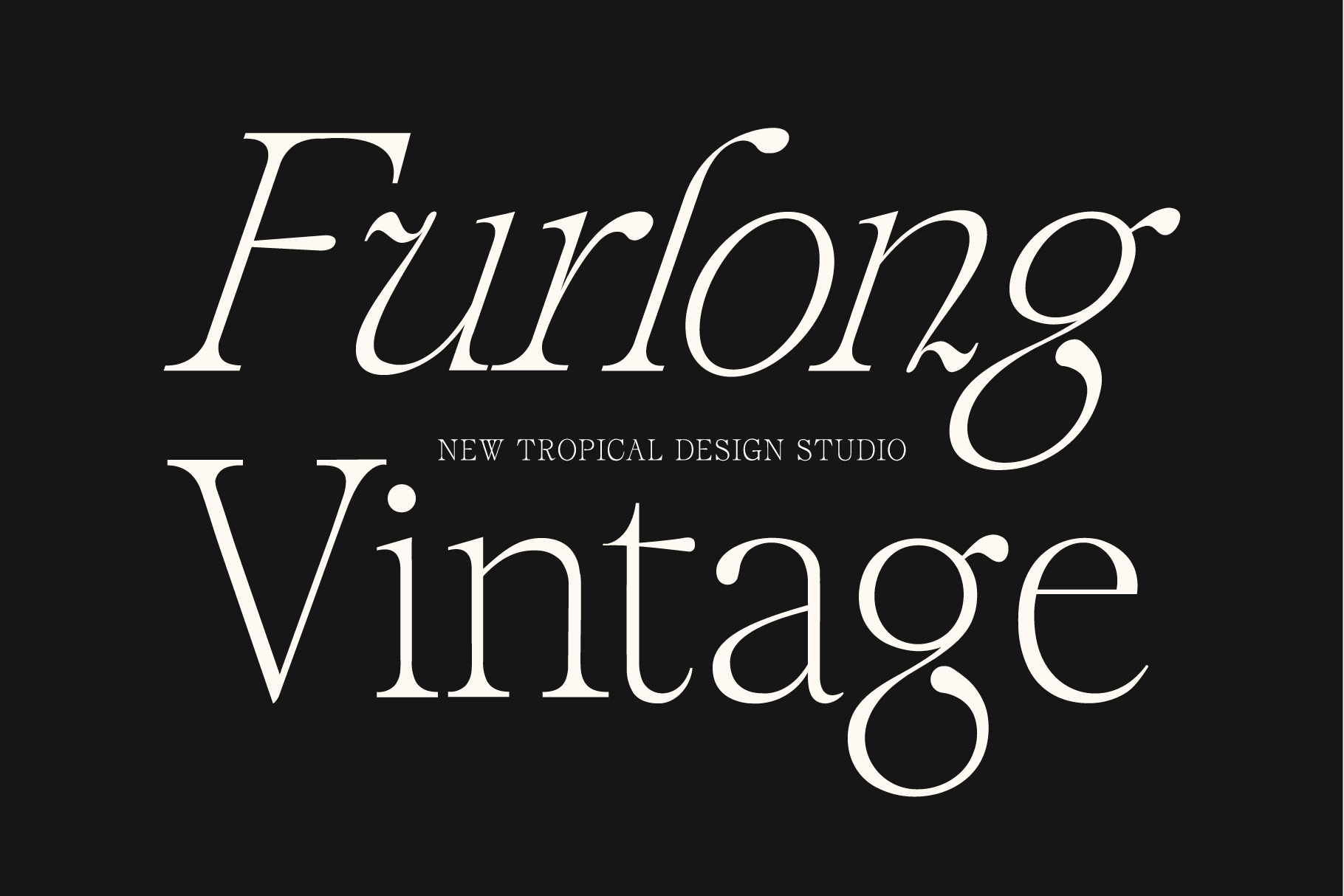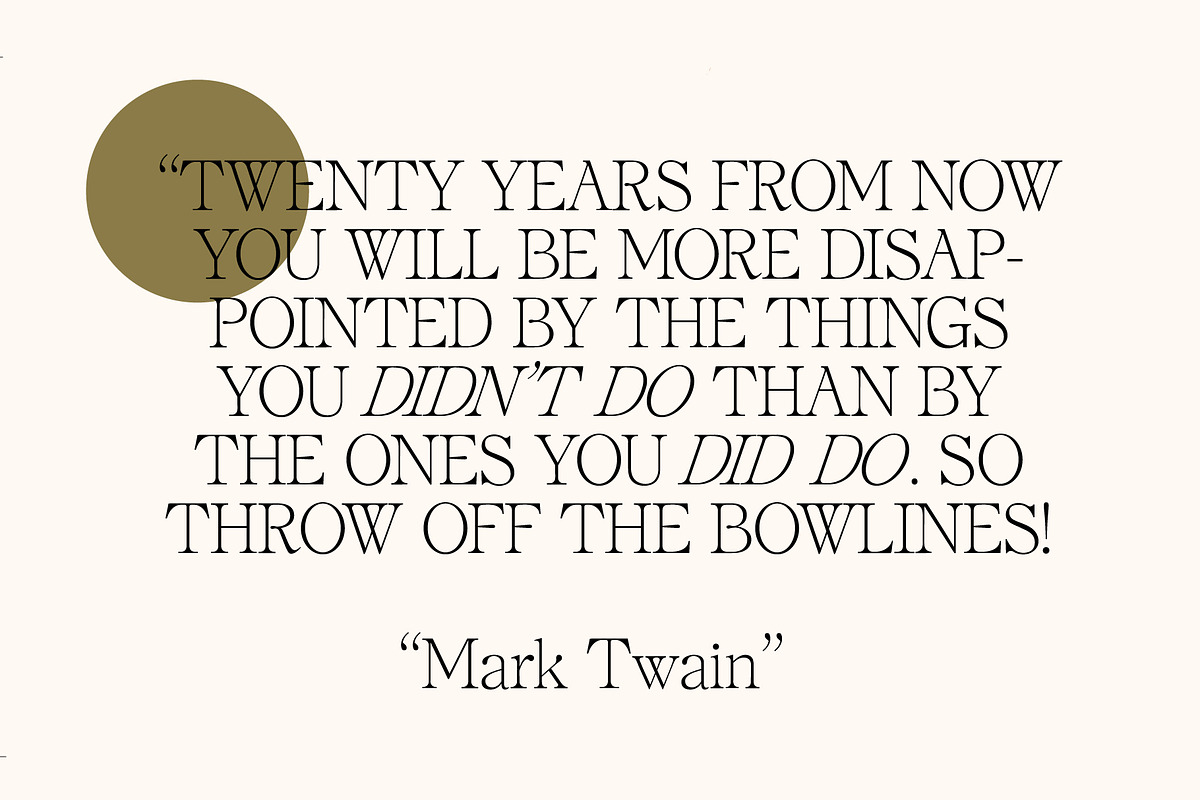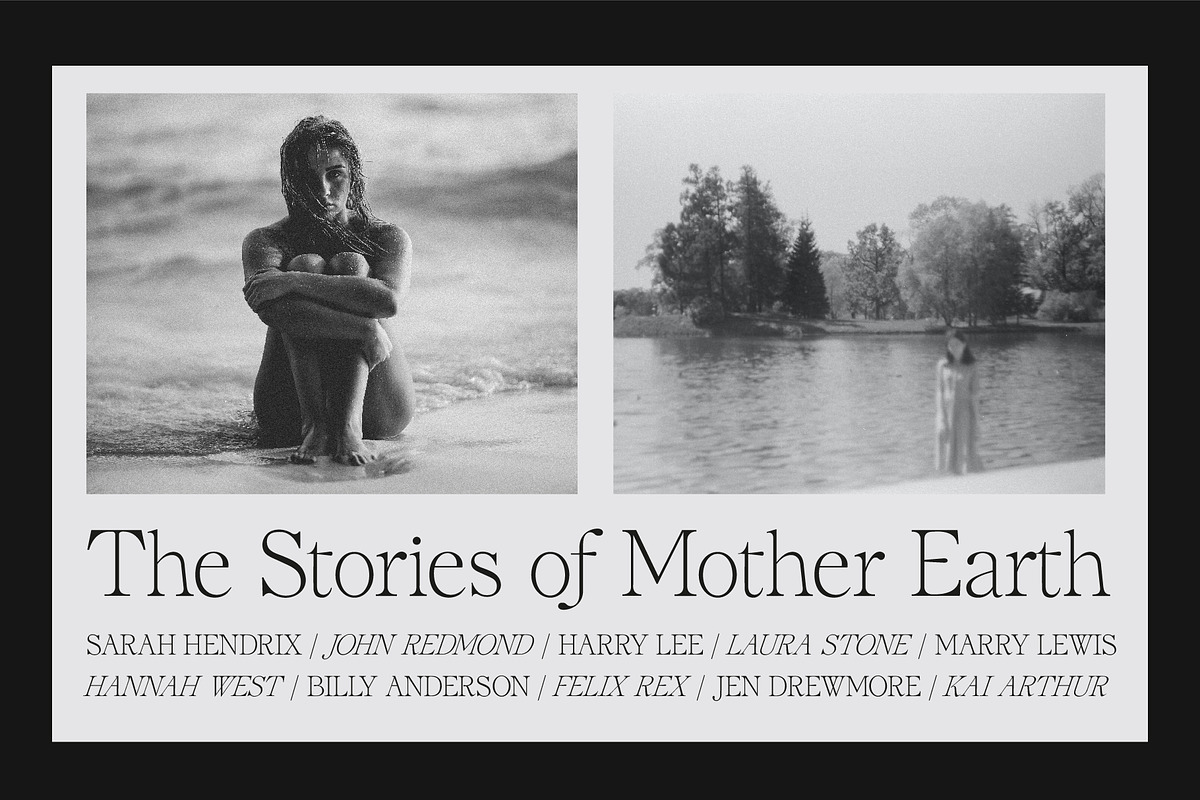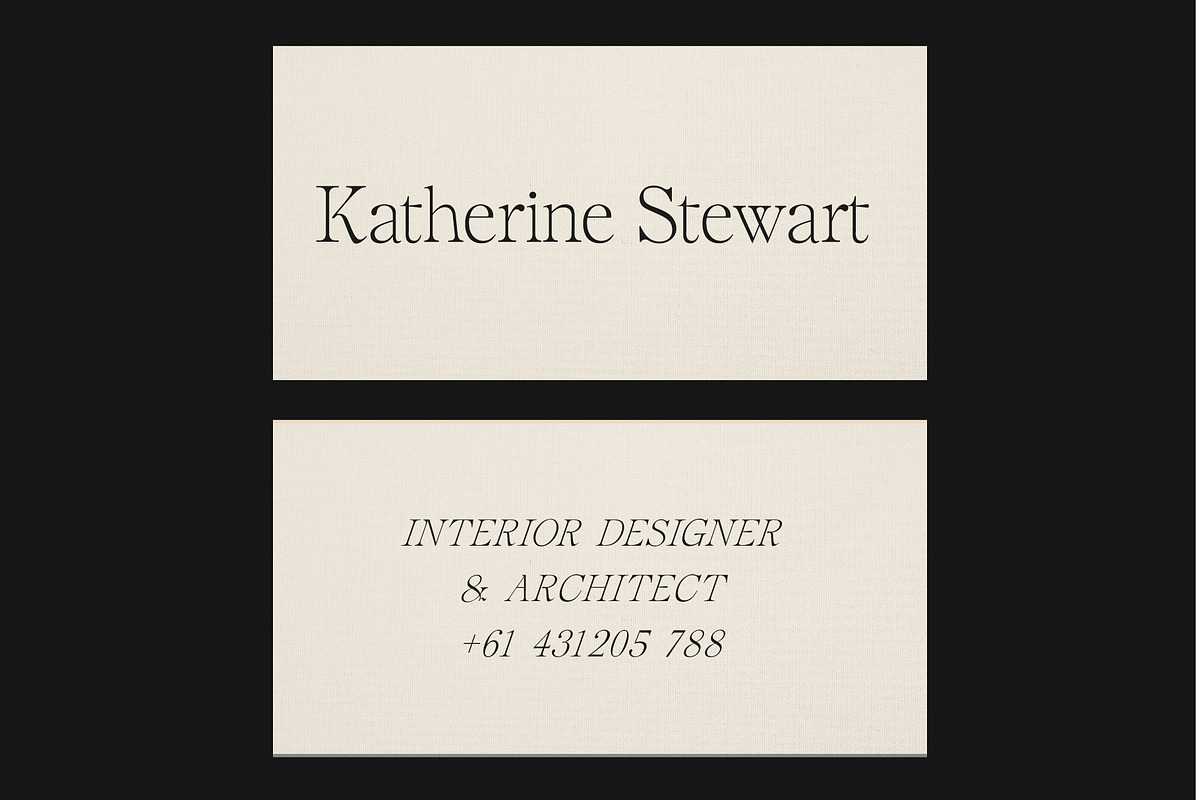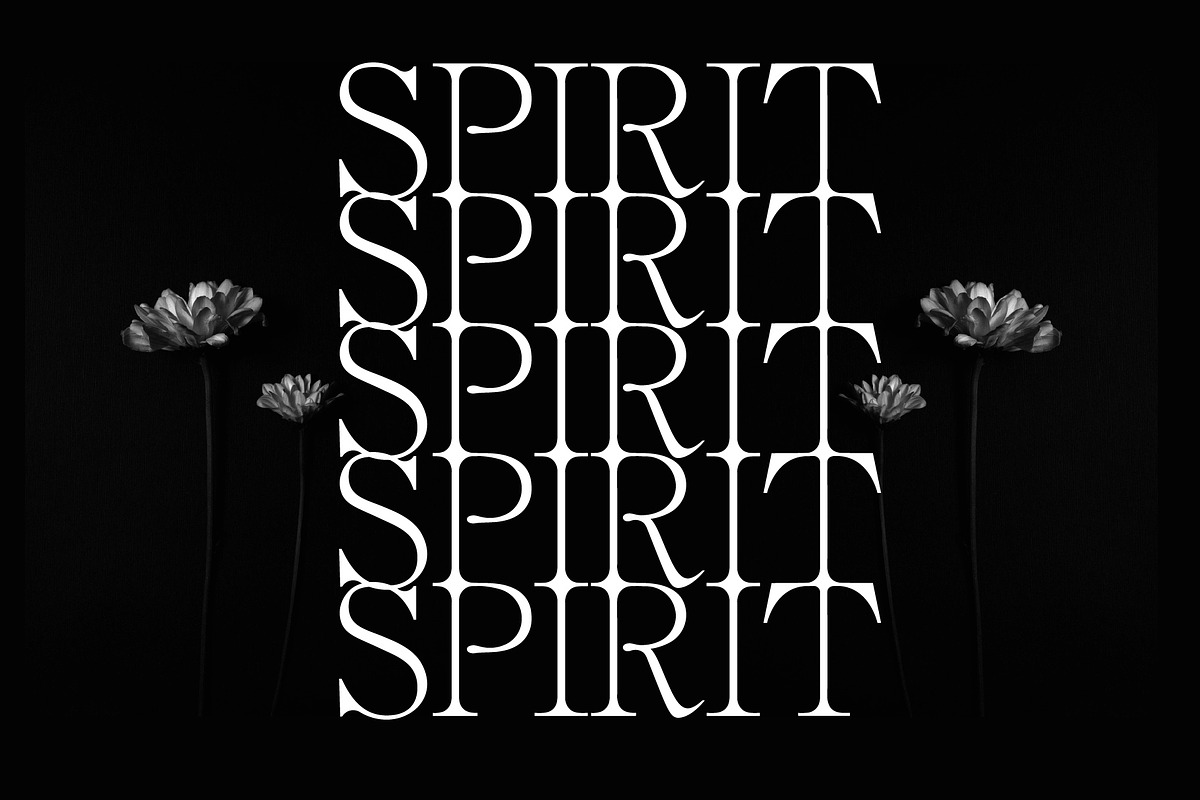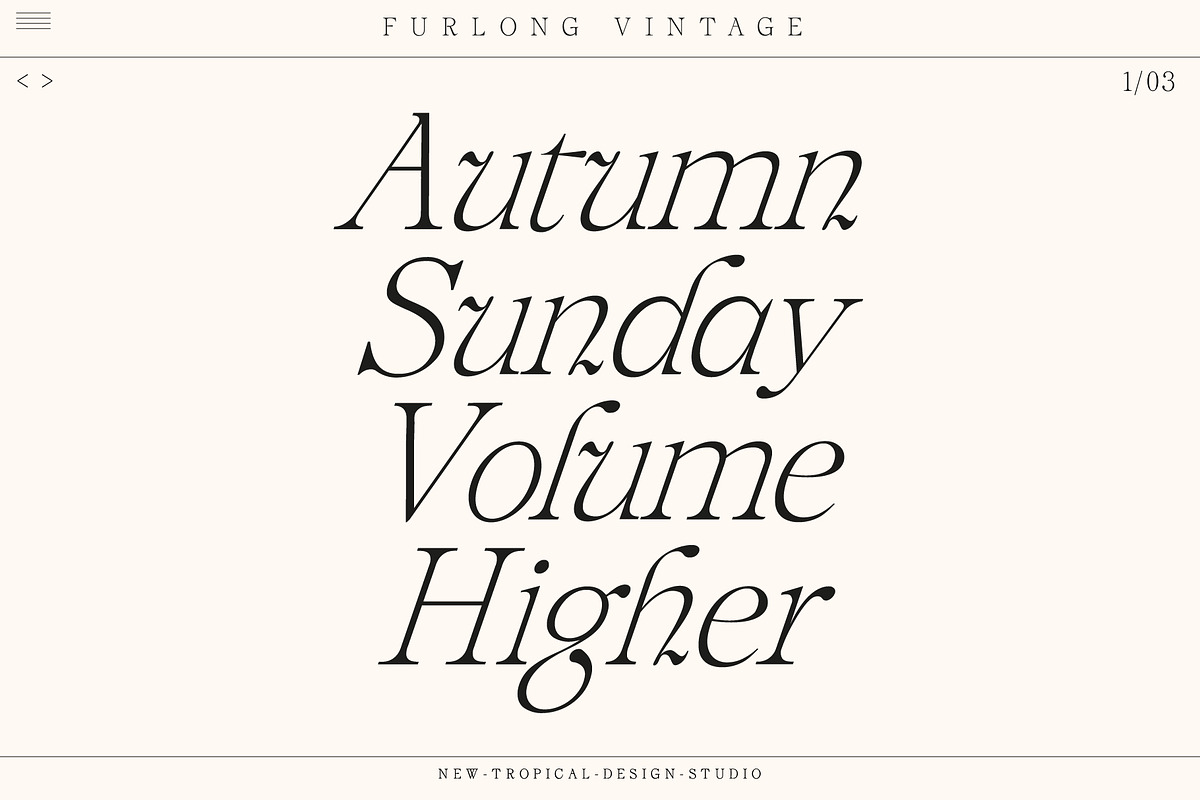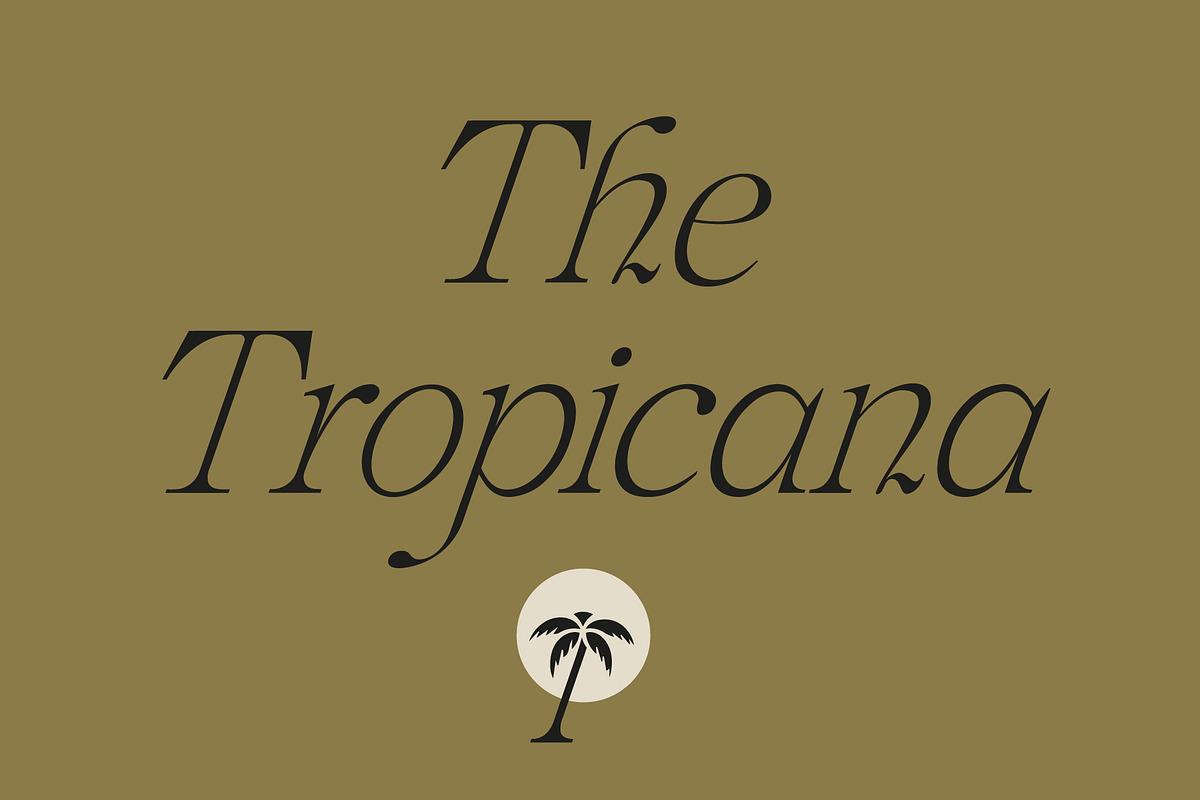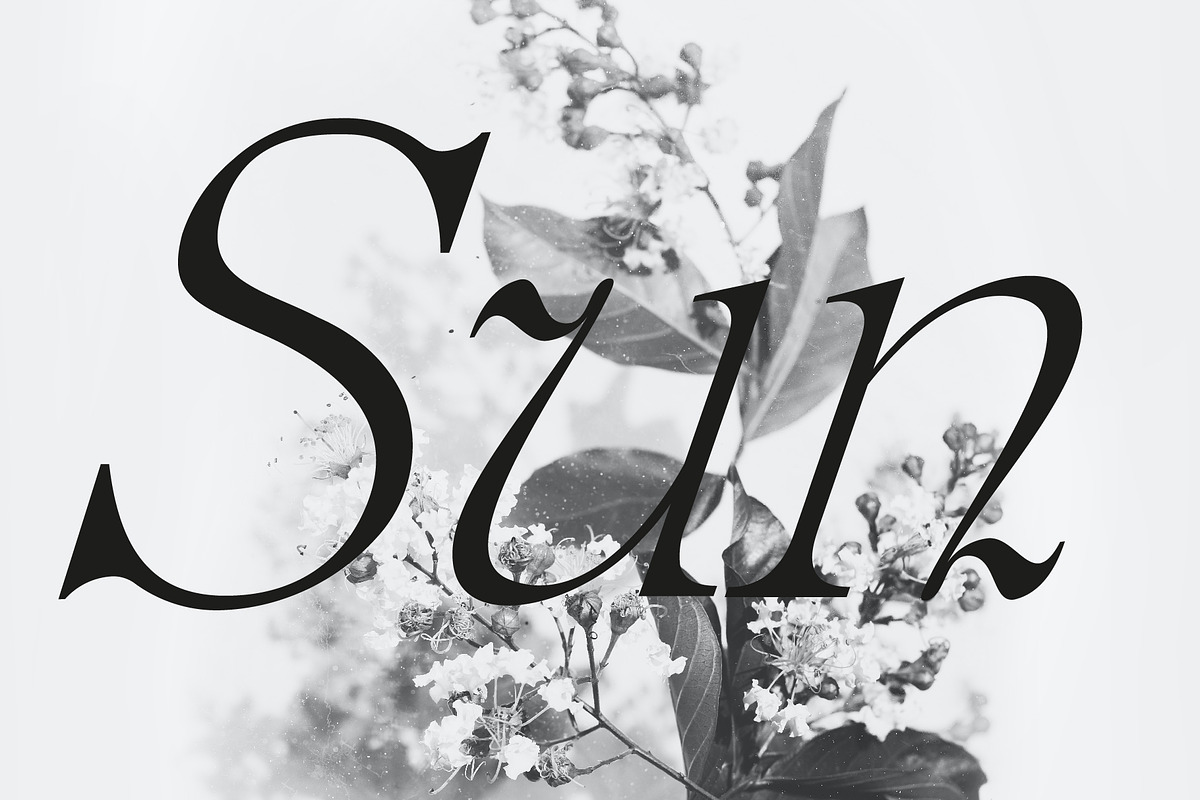
Furlong Vintage Serif Font
Furlong is a classic display serif with plenty of style. It uses minimal ornate flourishes and unique letters to show its class. Furlong comes with an ornate italic to match. Perfect for fashion work, magazines or just a classy logo design.
- full ltalic case